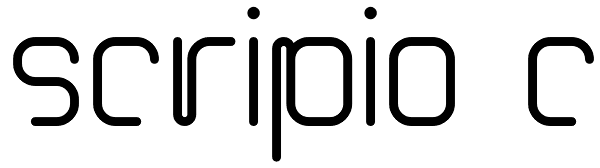
Scripio C
This font from the same family as Scripio A and Scripio B. The truth it more likely their cousin, very much it is not similar to them. Though looks not so bad.
Scripio C Font